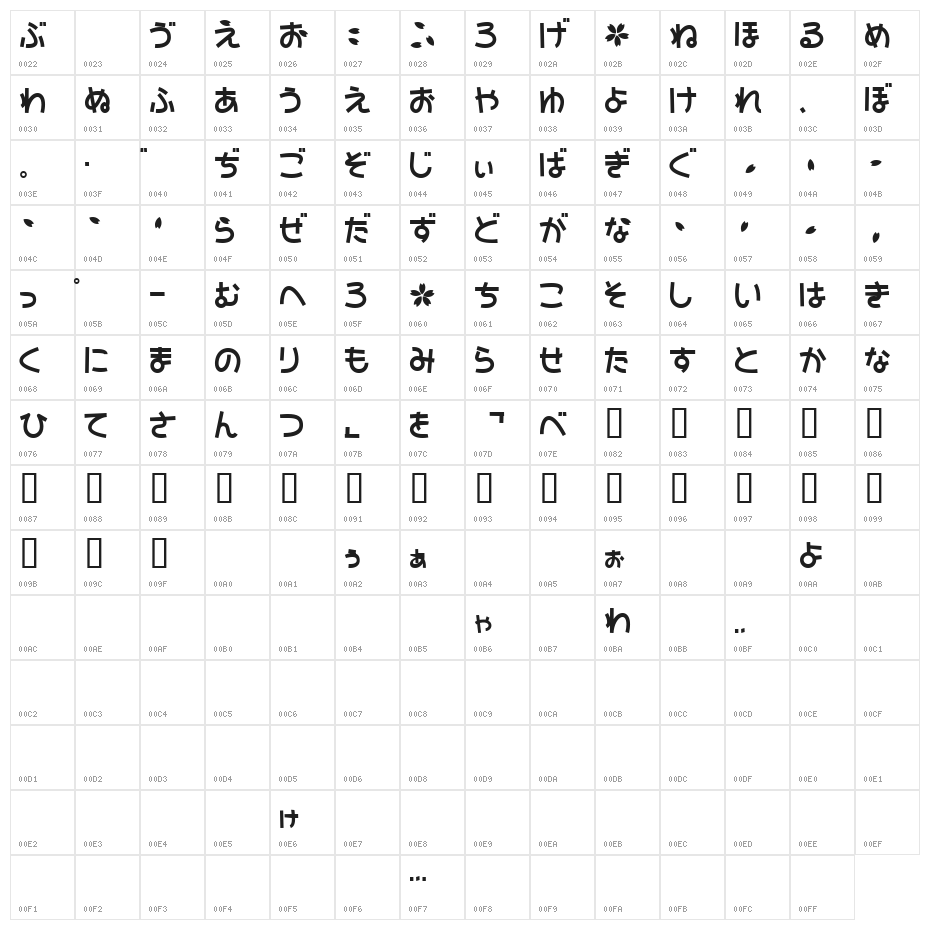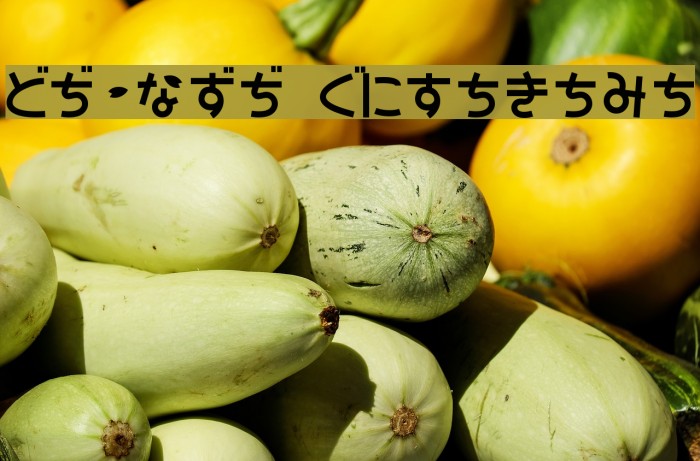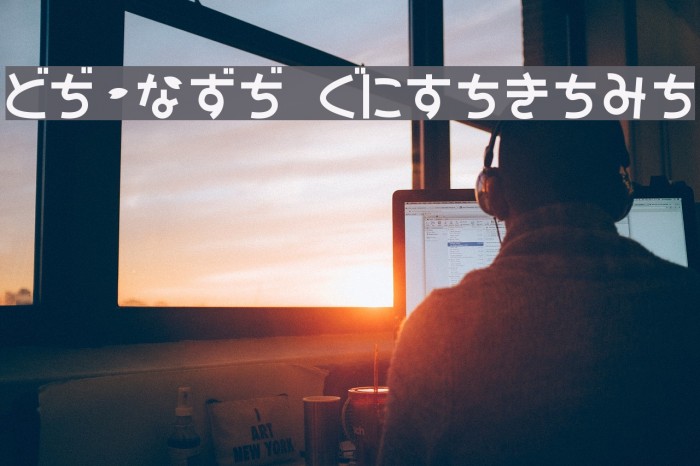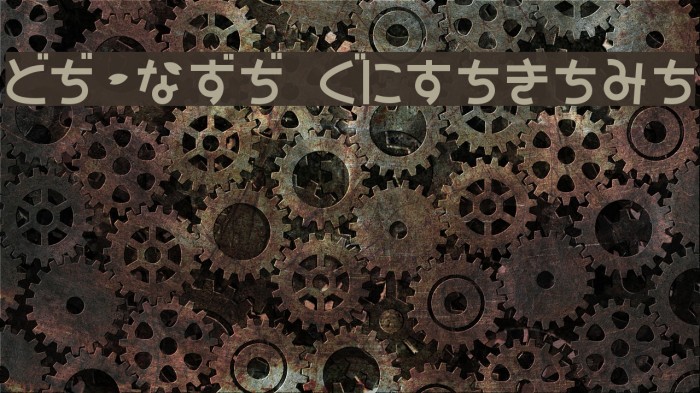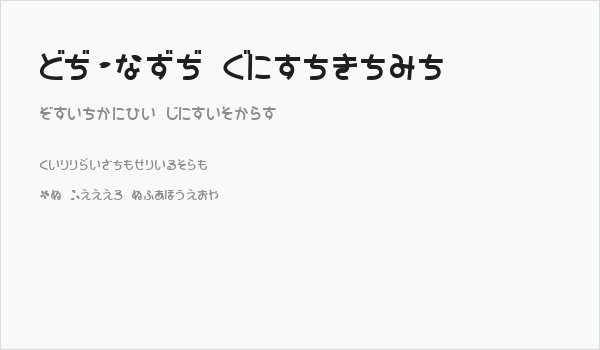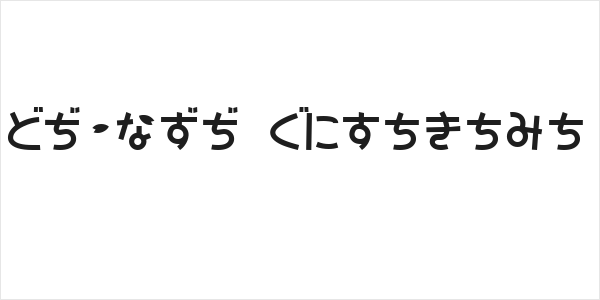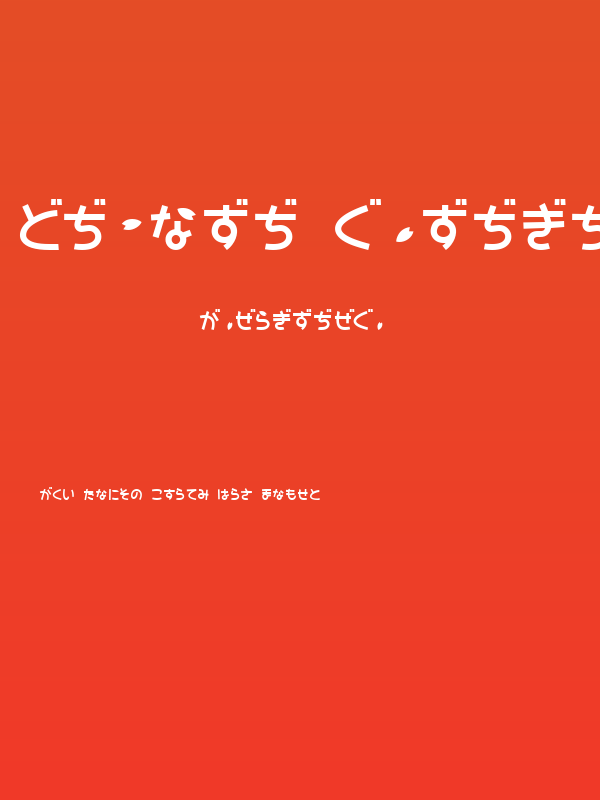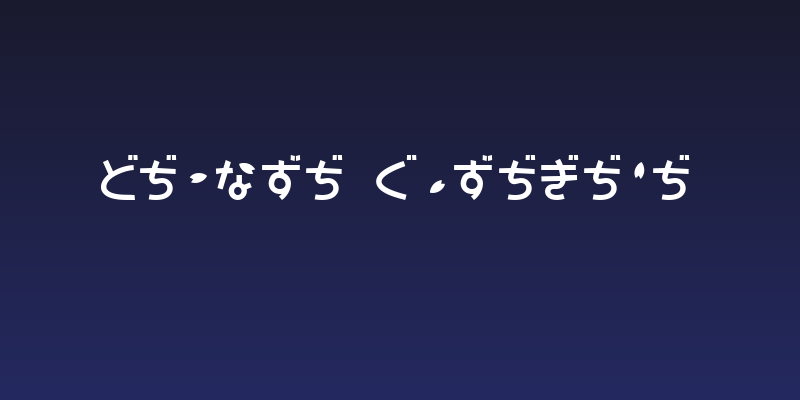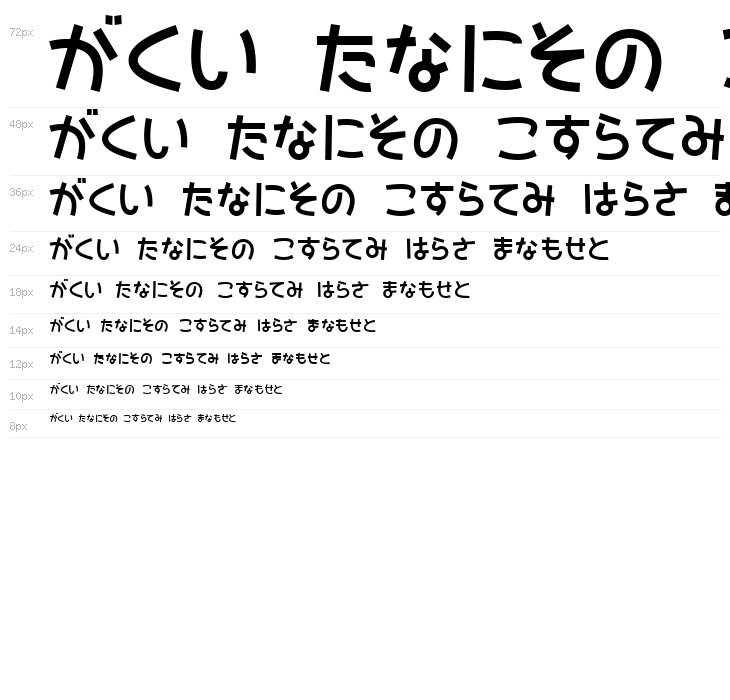
SAKURA Hiragana Font
SAKURA Hiragana Description
This font features a clean and modern design, characterized by smooth curves and a balanced structure. The characters are well-proportioned, offering a harmonious appearance that is easy to read. The strokes are consistent in thickness, providing a uniform look across all characters. The font maintains a traditional feel while incorporating contemporary elements, making it versatile for various applications. Its simplicity and clarity make it suitable for both digital and print media, ensuring readability across different sizes and formats.
| Use Case | Body text, Educational materials, Signage |
| Proposed Projects | Ideal for educational materials, children's books, signage, and digital interfaces requiring clear and legible text. |